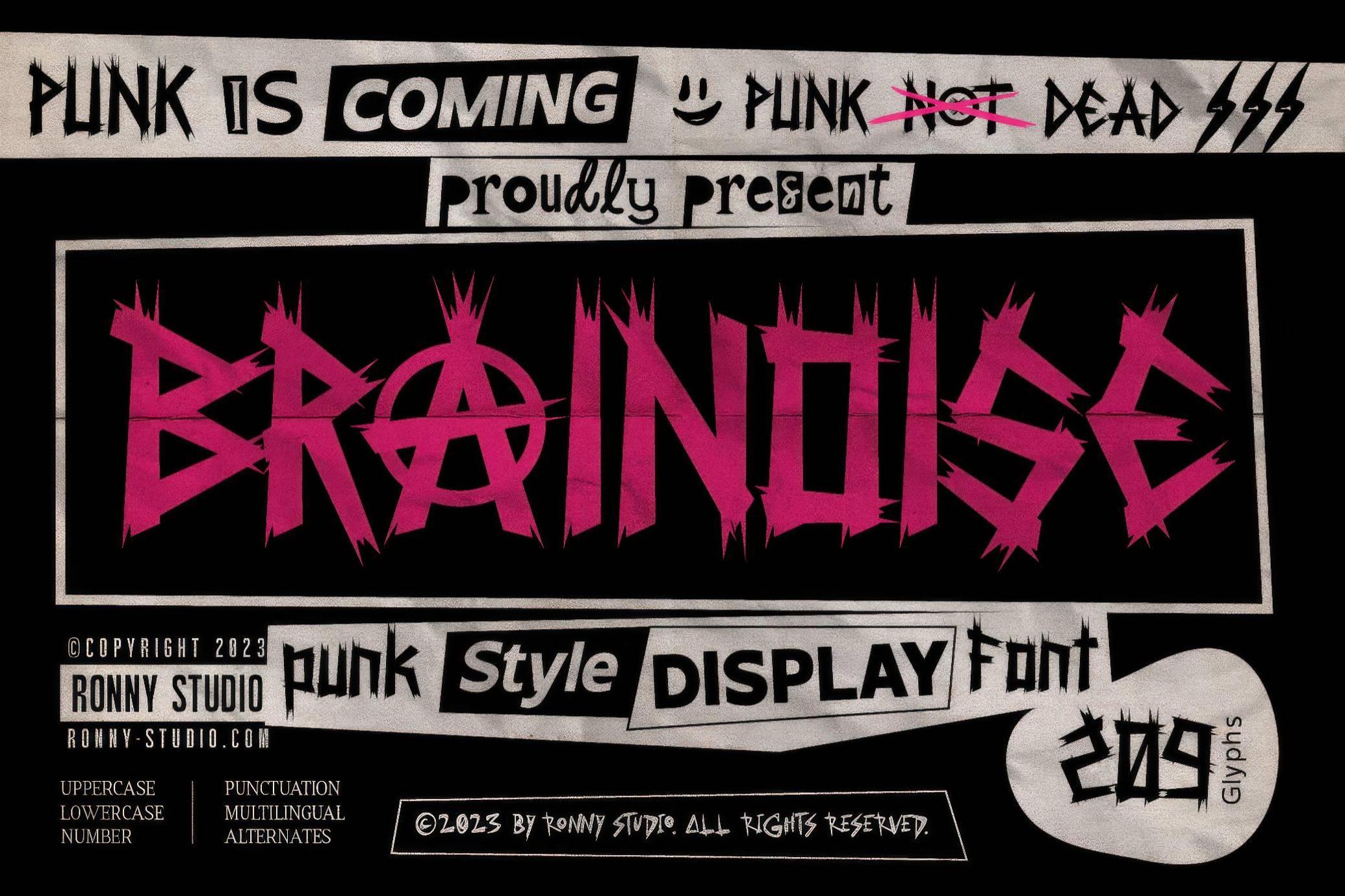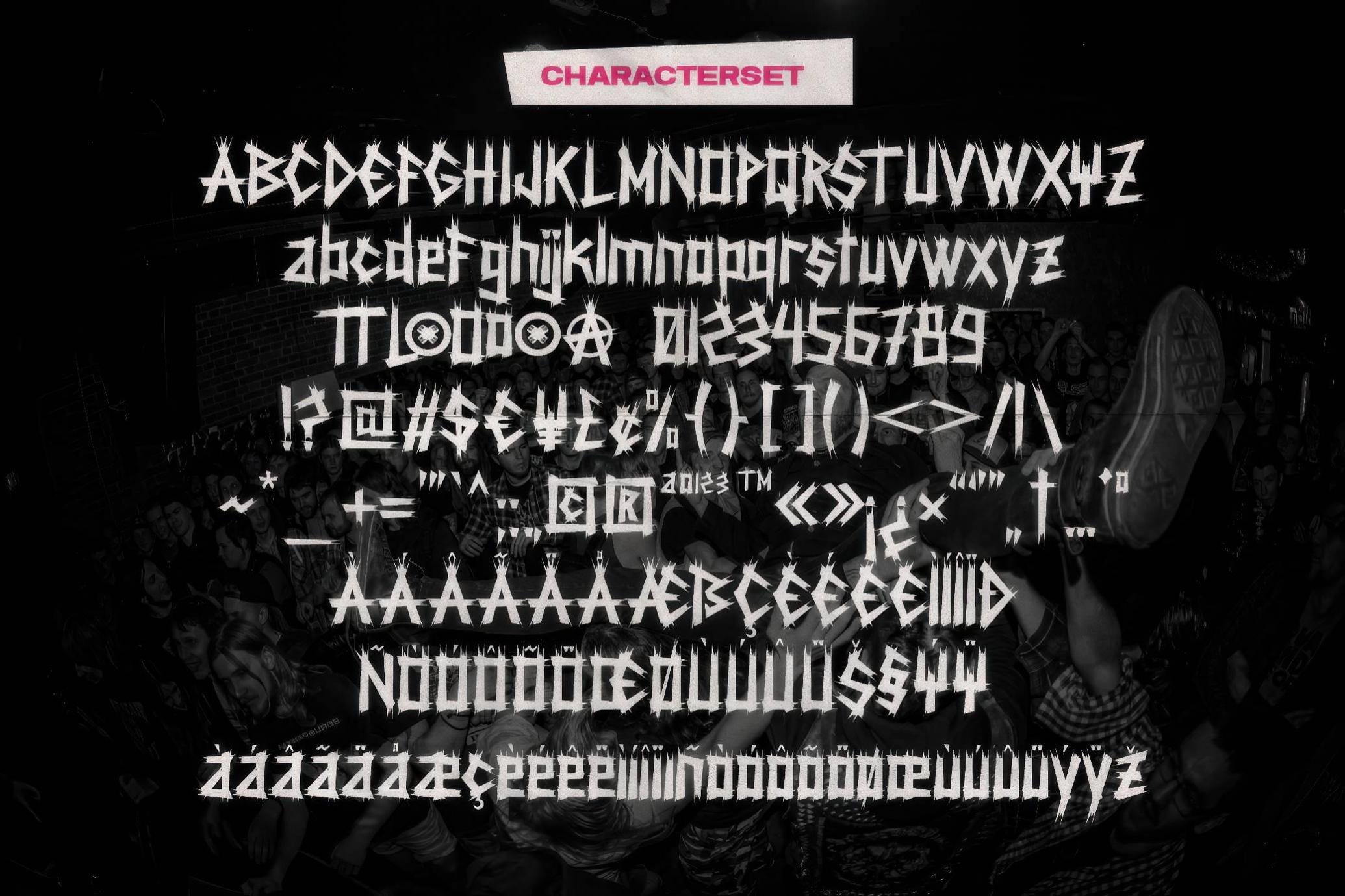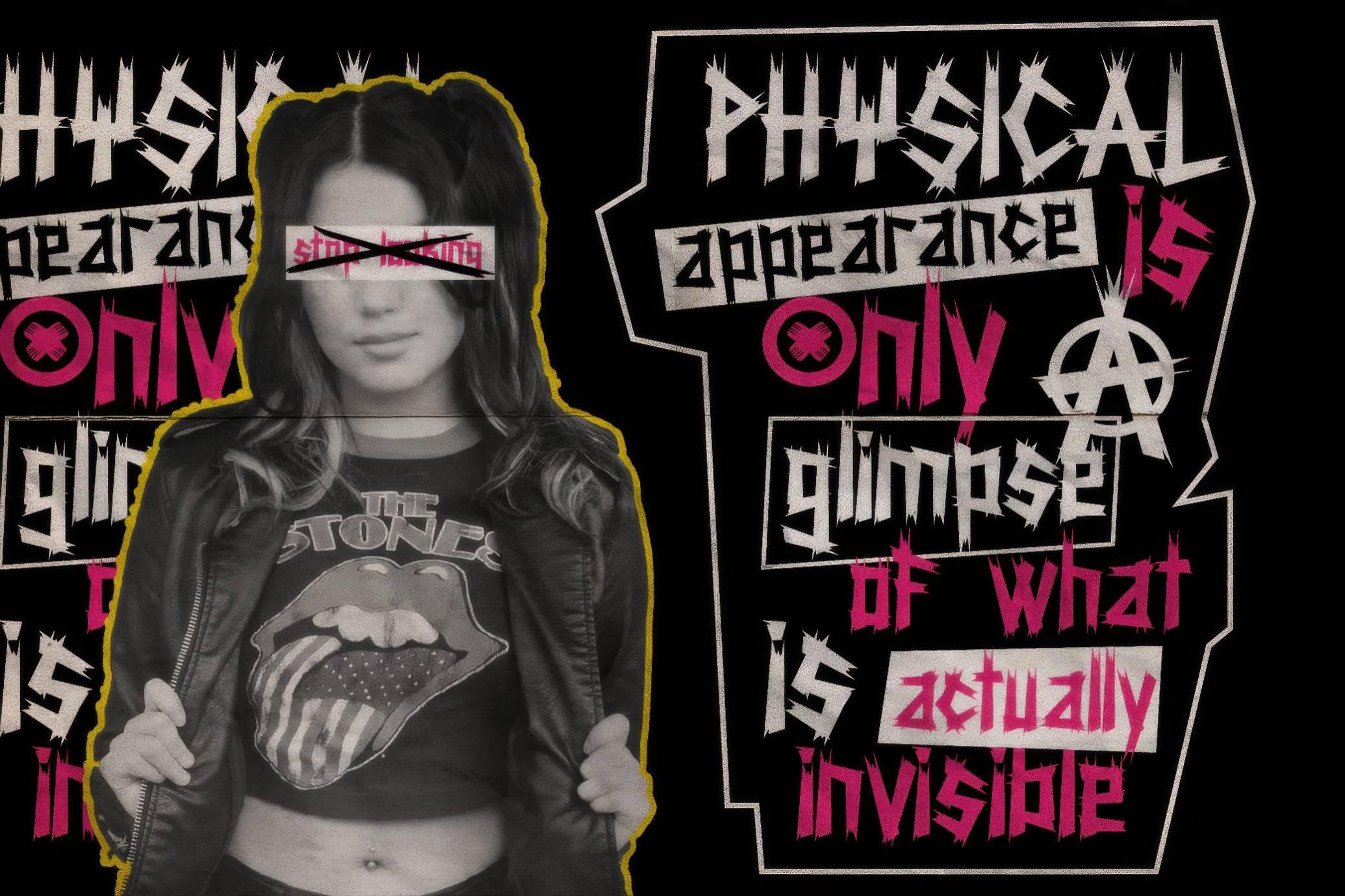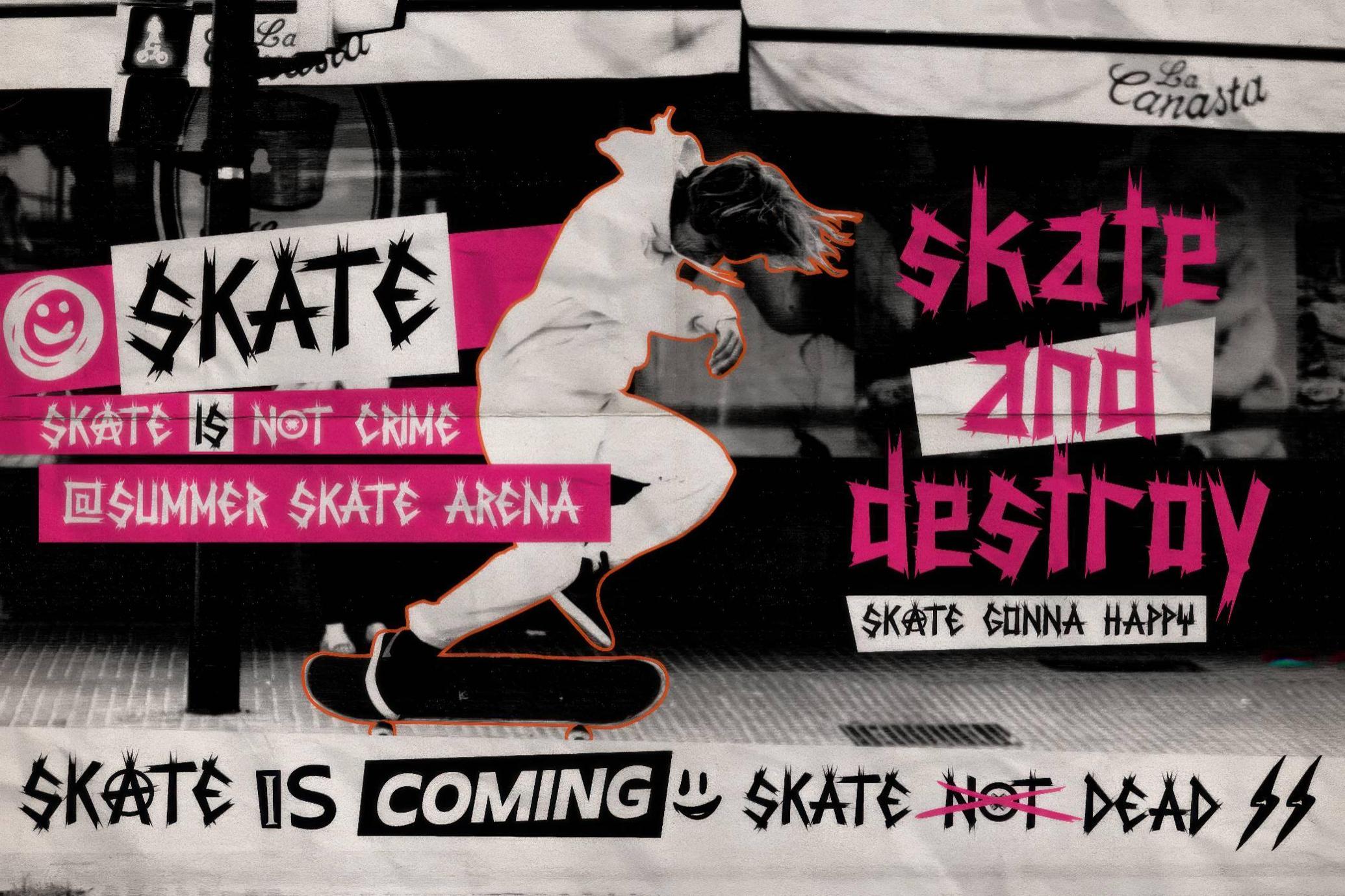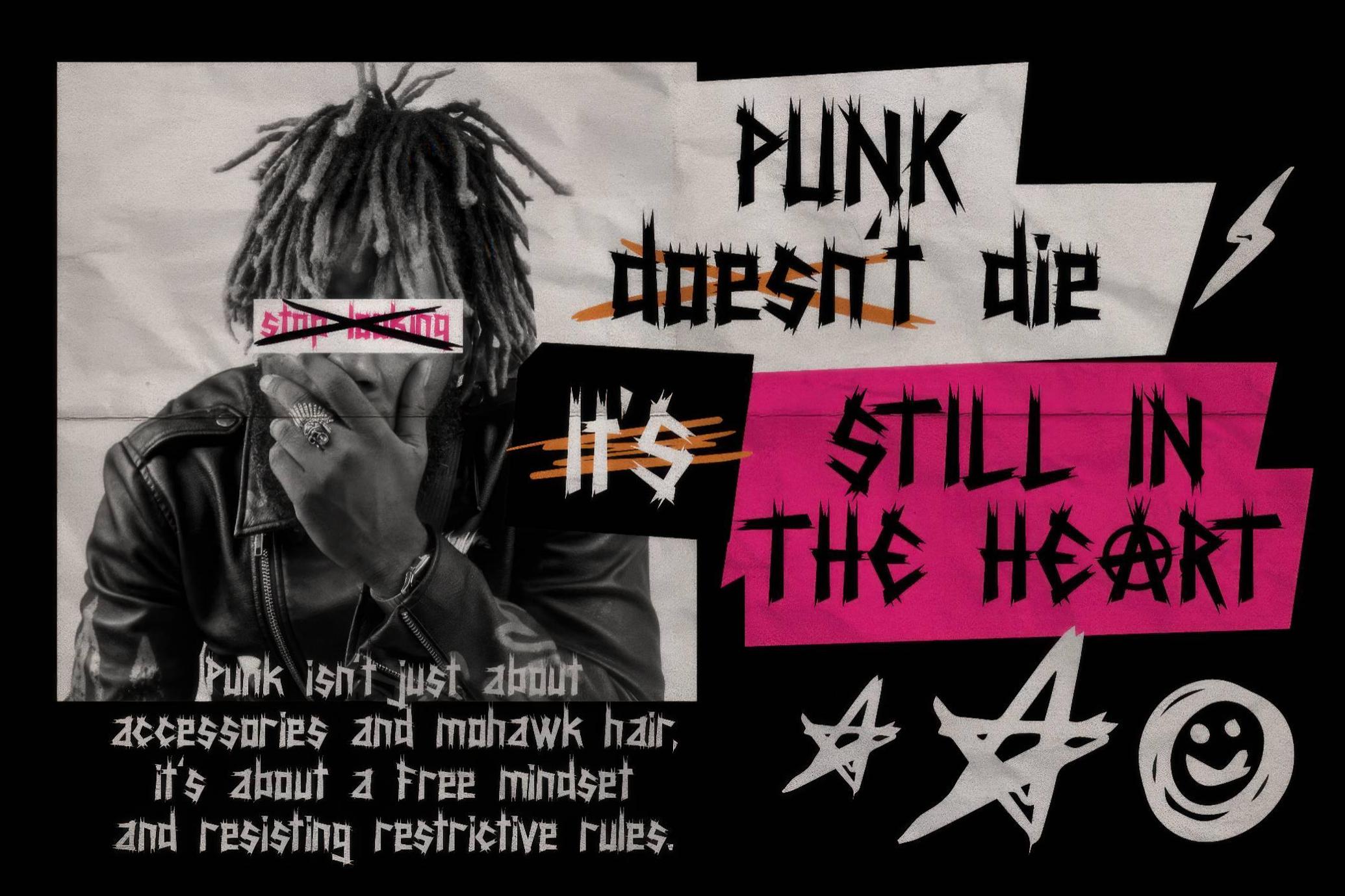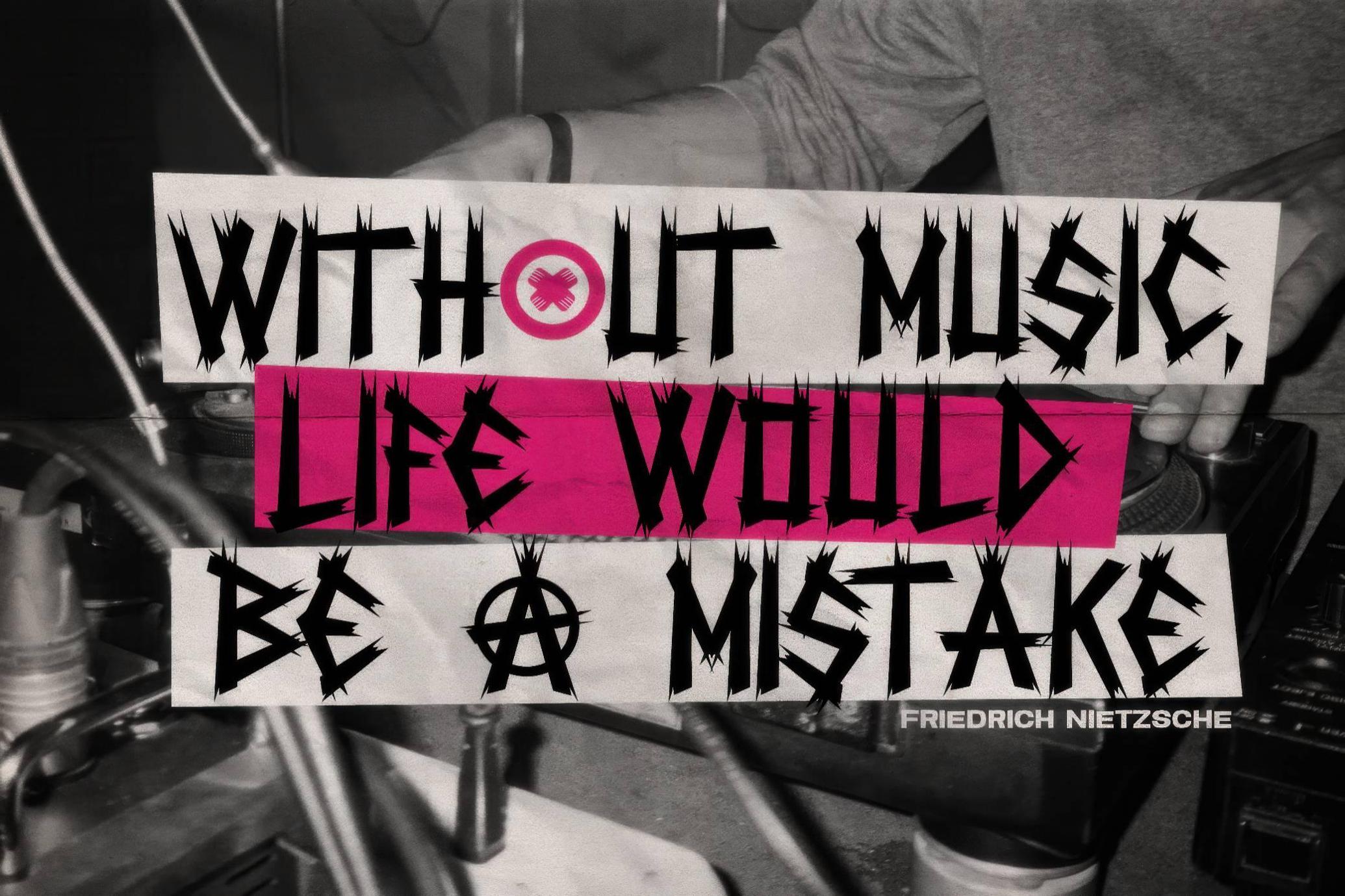
Brainoise — Punk Display Font
Punk’s not dead and it has a font. The Brainoise typeface looks like it was duct-taped together backstage at a basement gig, soaked in sweat, and handed to you on a crumpled zine. Every glyph screams DIY anarchy with its jagged cuts and uneven strokes. And yes, the “A” is what it should be: a circle of chaos (just go for alternates).
Perfect for band logos, tour posters, underground zines, streetwear branding, flyers, album covers, or loud type in fashion editorials that don’t ask permission. The set of glyphs includes uppercase & lowercase, numbers, punctuation, alternates, ligatures, and multilingual support.